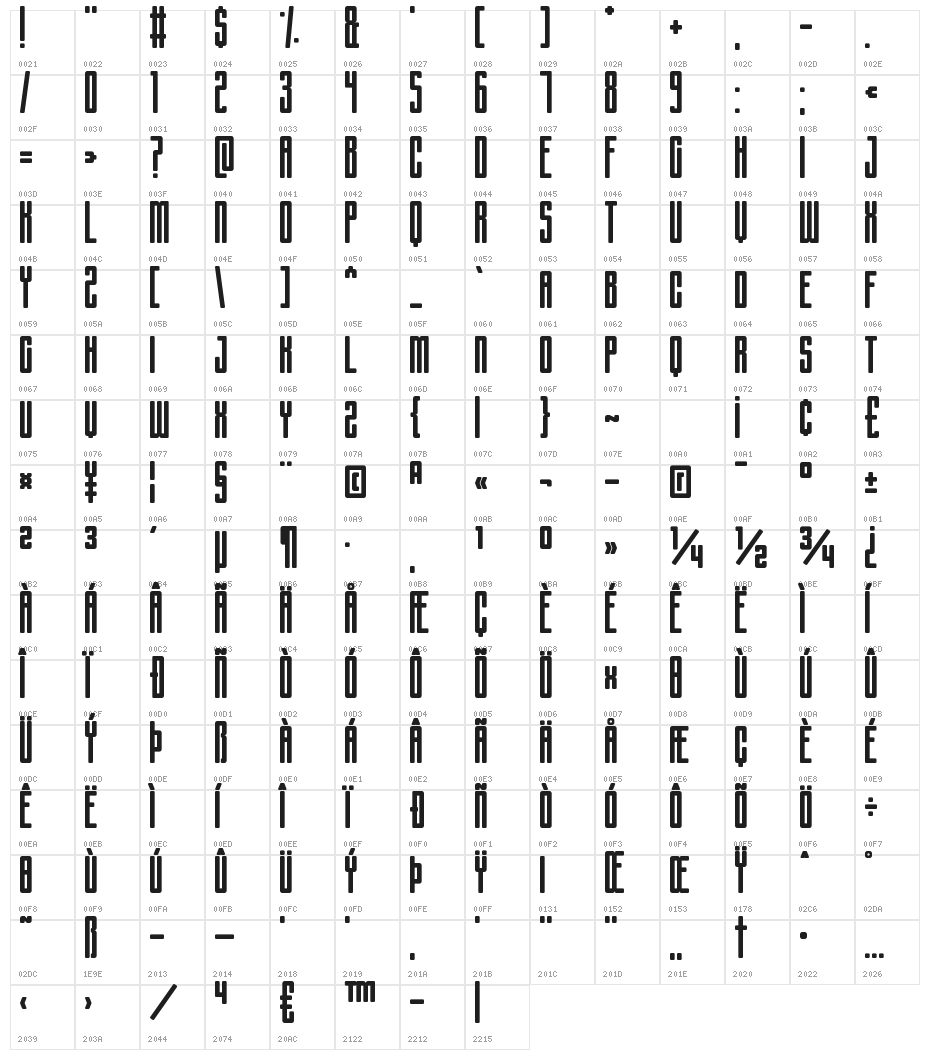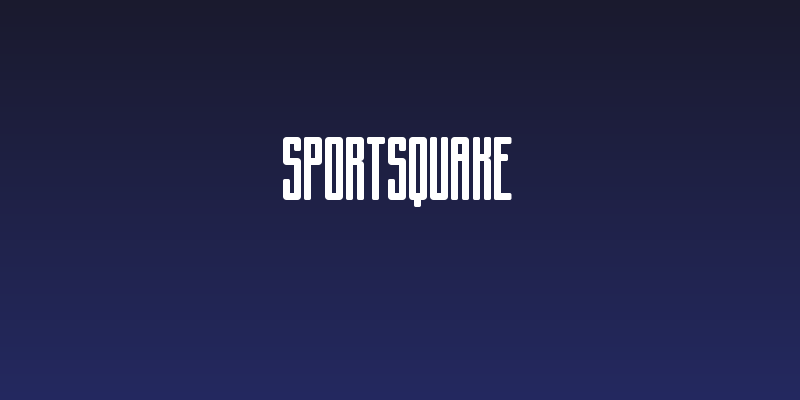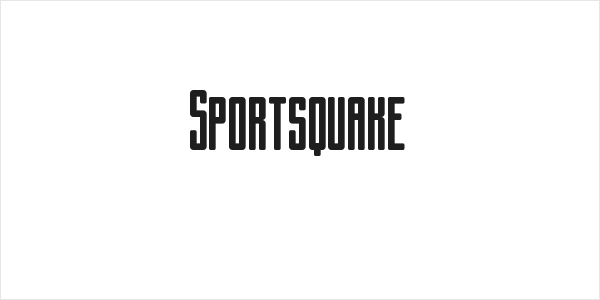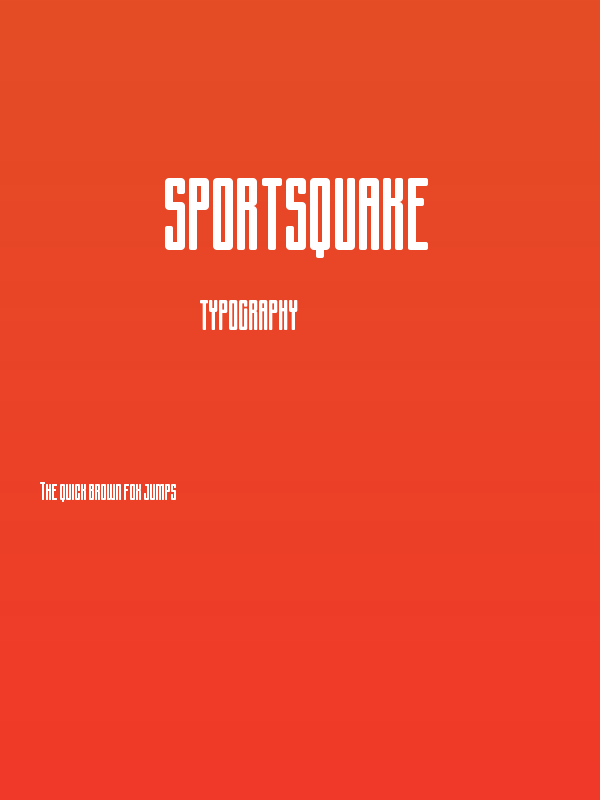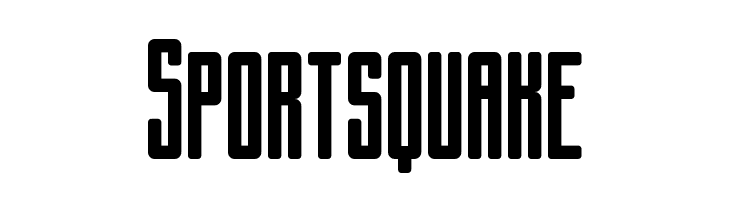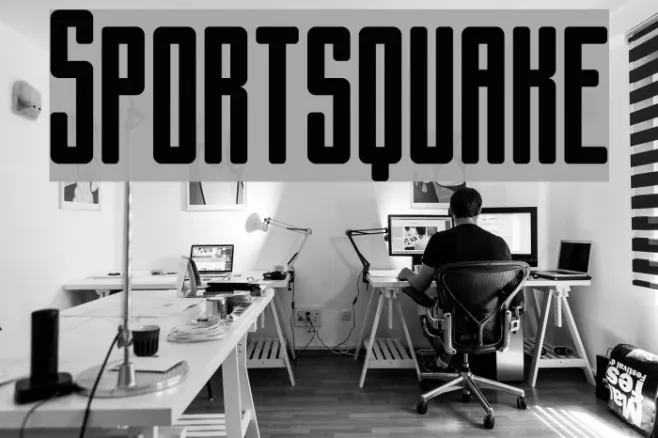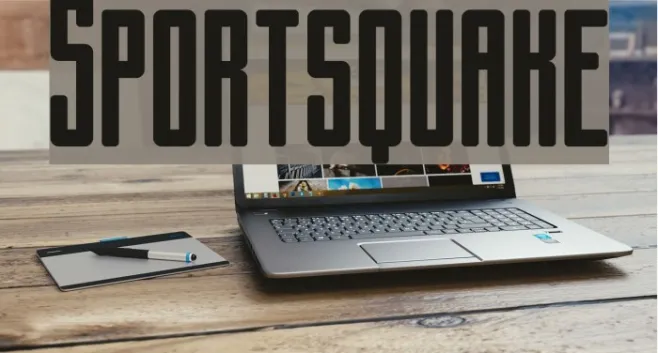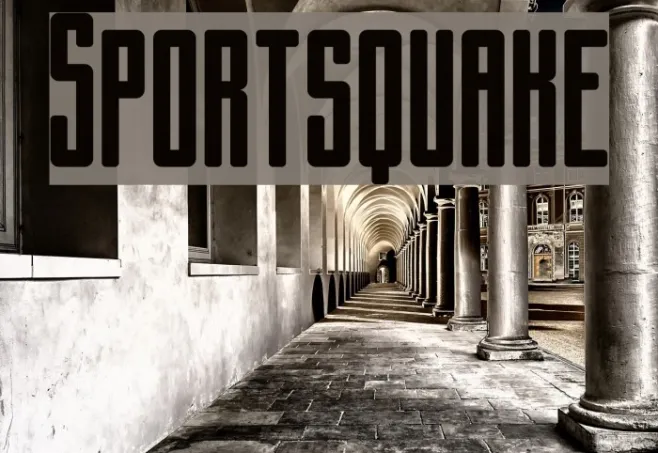
Sportsquake Font
Sportsquake Description
This font features a bold, condensed style with a strong vertical emphasis. The characters are tightly packed, creating a sense of urgency and impact. The strokes are thick and uniform, contributing to a high contrast appearance. This font's geometric and structured design gives it a modern and industrial feel, making it suitable for attention-grabbing headlines and displays. The uppercase and lowercase letters maintain consistent height, enhancing its compact and cohesive look. The numerals and special characters follow the same bold and condensed style, ensuring uniformity across all text elements.
| Proposed Projects | Ideal for sports branding, posters, and dynamic headlines. |